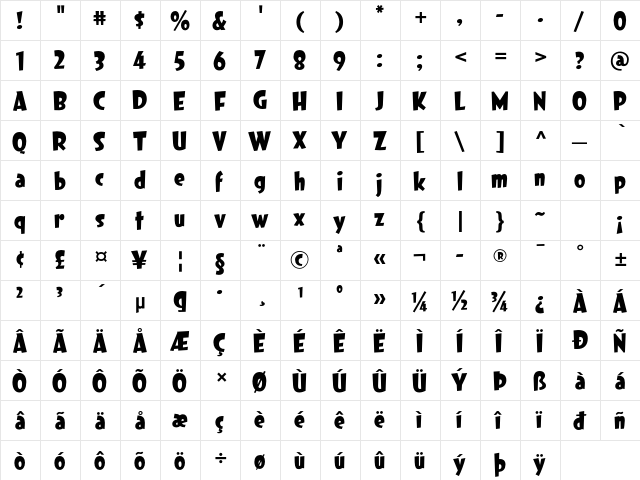
Dreamland Std Regular
Design Context for Dreamland Std Typeface
Dreamland Std is a composed and adaptable typeface that performs quietly and consistently across a wide range of design contexts.